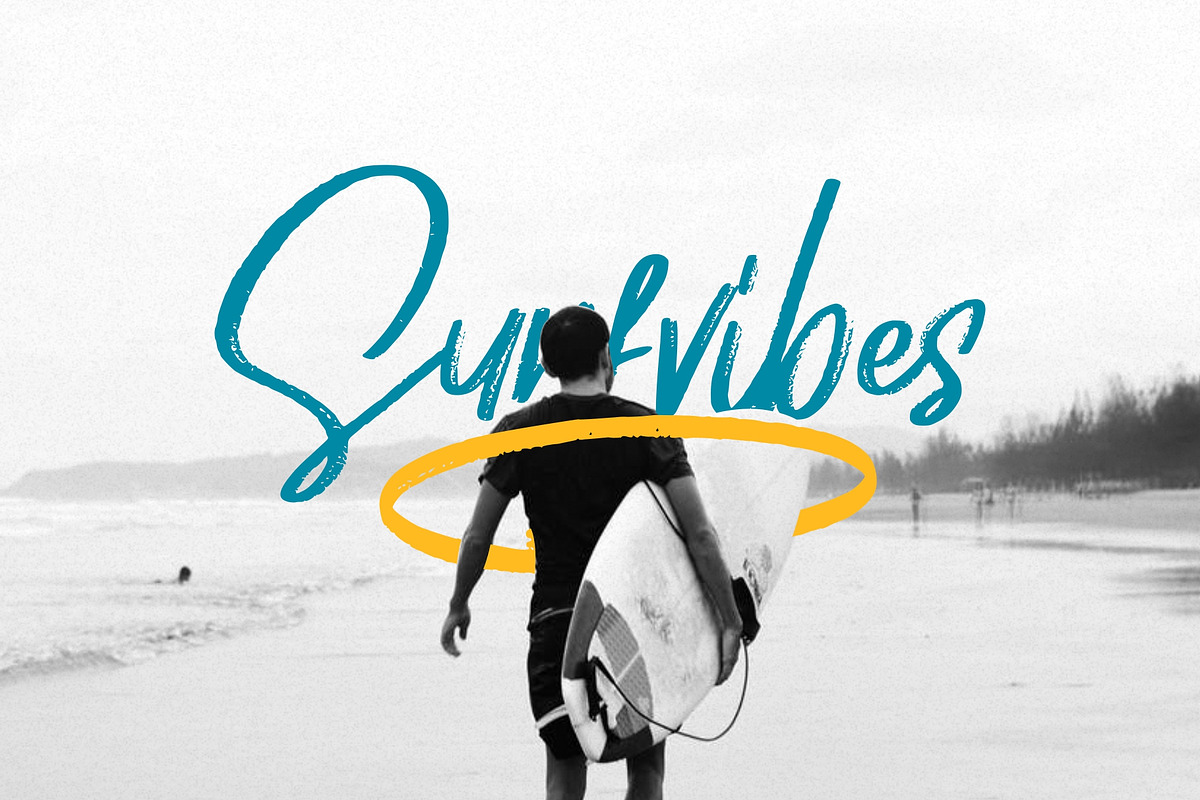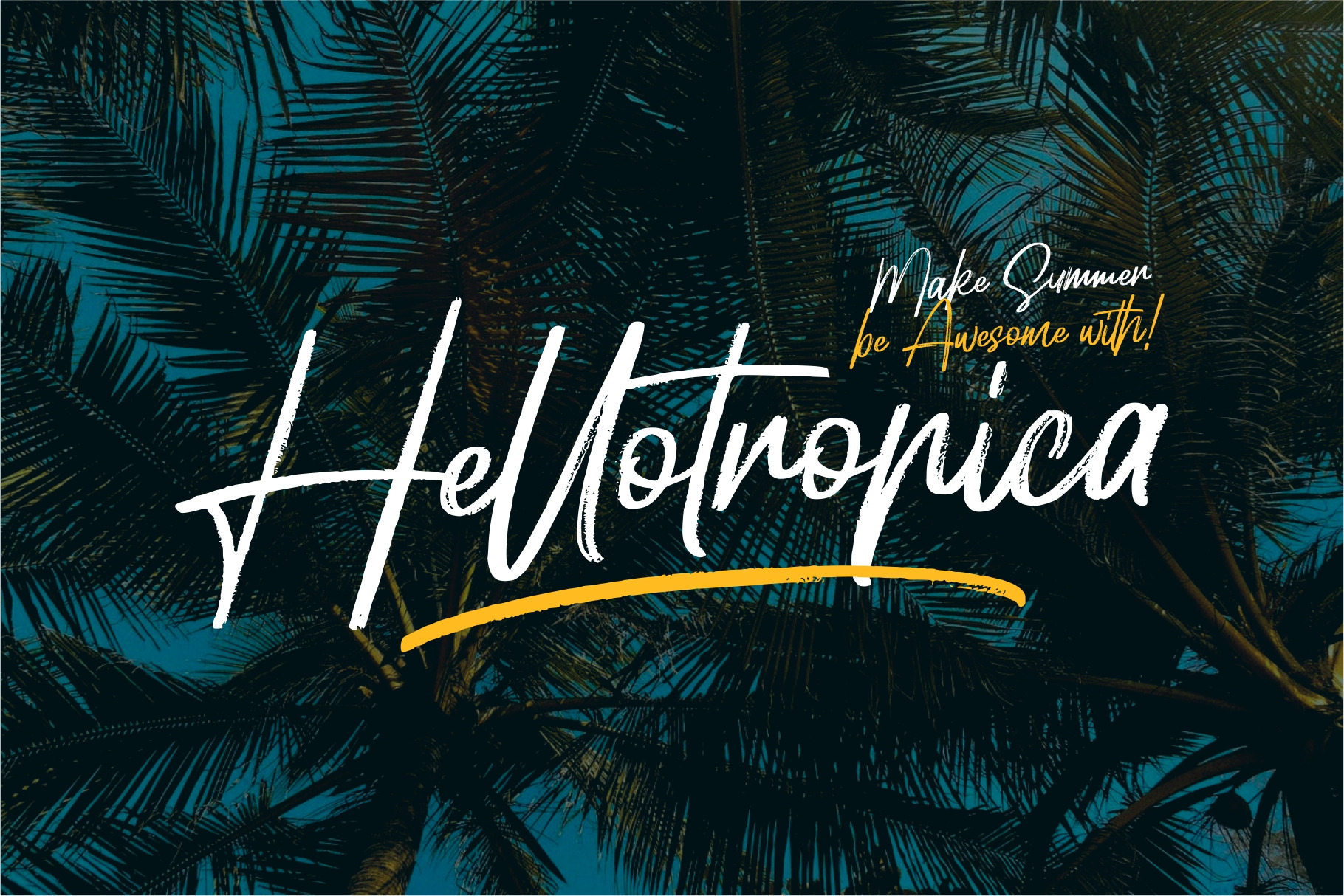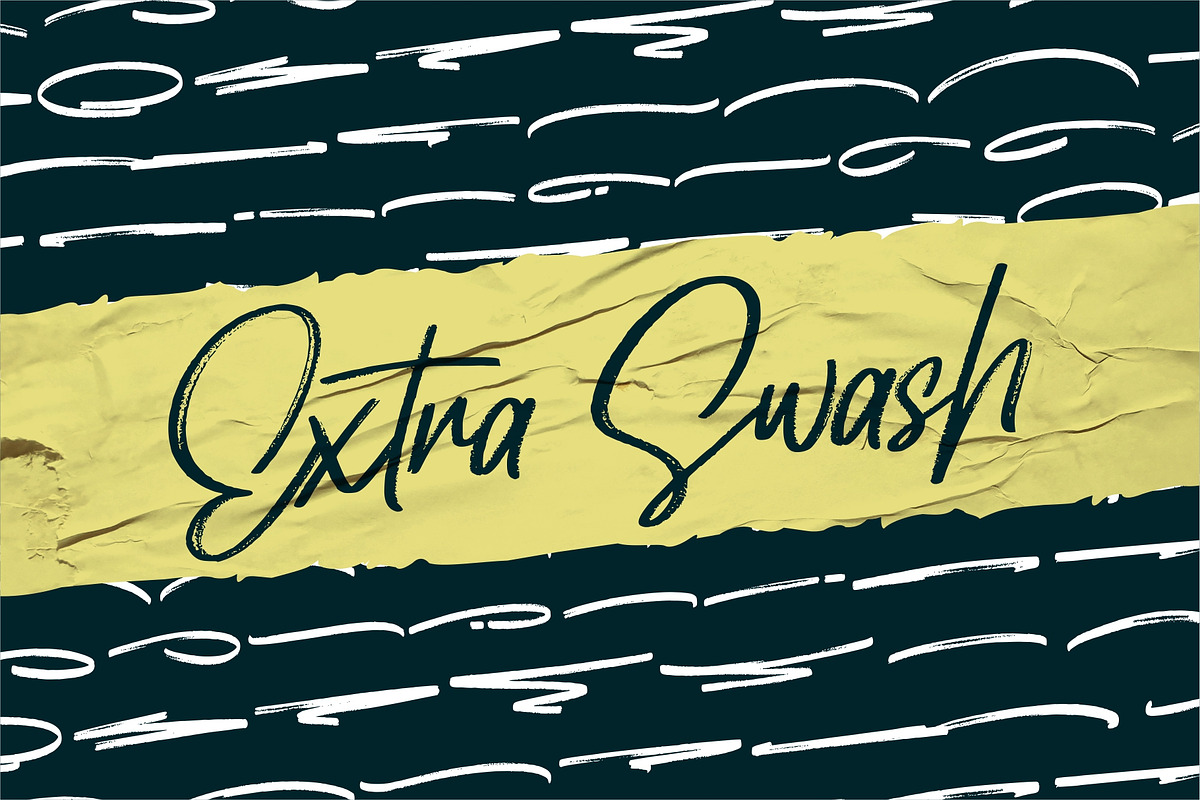
Hellotropica Handbrush Fonts
Hellotropica is made natural handbrushes with the styles for Summer Vibes. With the unique Opentype in it and the ligature will add aesthetic value to your design product. Available in this file are Hellotropica Swash which you can unite into an amazing design.
- Versatile for poster, logotype, labels, book cover
- Detailed dry brush